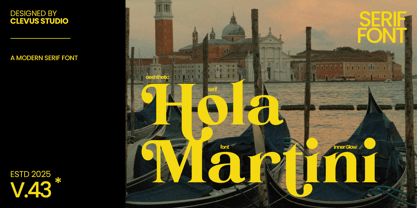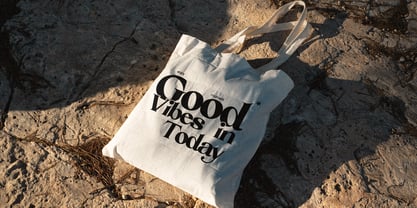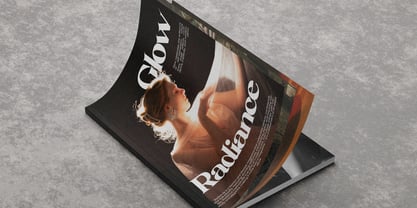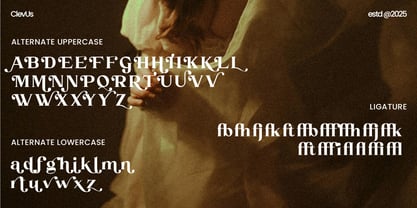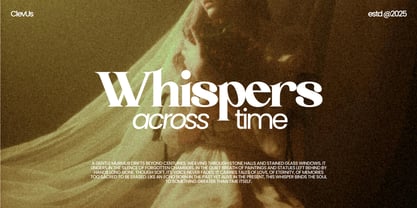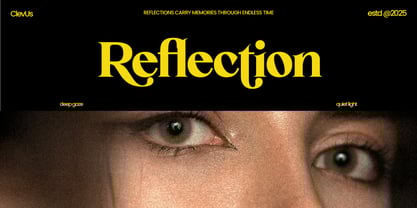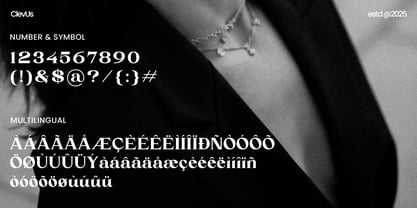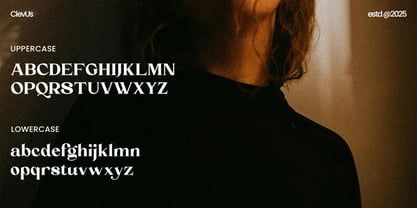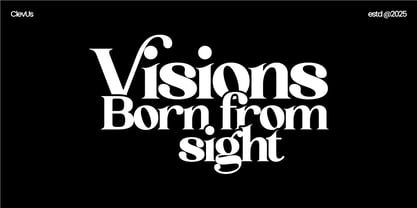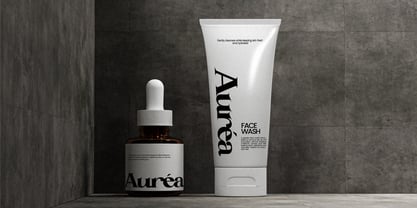
Hola Martini
by Clevus
The Hola Martini Font Family was designed by Alfinu Zafir and published by Clevus. Hola Martini contains 1 styles.
Introducing Hola Martini, a bold and playful modern serif font that brings a touch of nostalgia to your designs. Designed to elevate your brand, its modern aesthetic is versatile, making it a great choice for a wide range of projects, from packaging and advertising to editorial design and more. Perfect for: - Luxury Brands: Create logos and branding that exude sophistication and elegance. - High-end Products: Design packaging and marketing materials for premium products. - Event Invitations: Develop stunning invitations for weddings, galas, and exclusive events. Get Hola Martini now and let your designs shine! Have a Good Day!